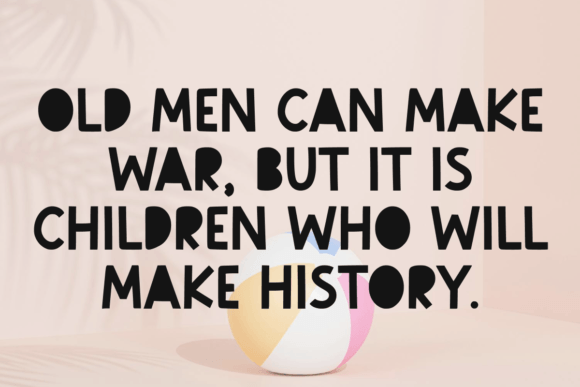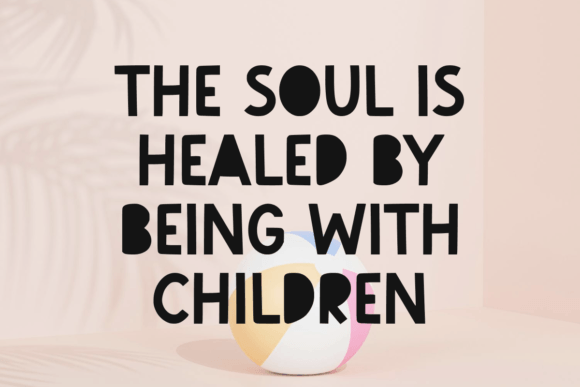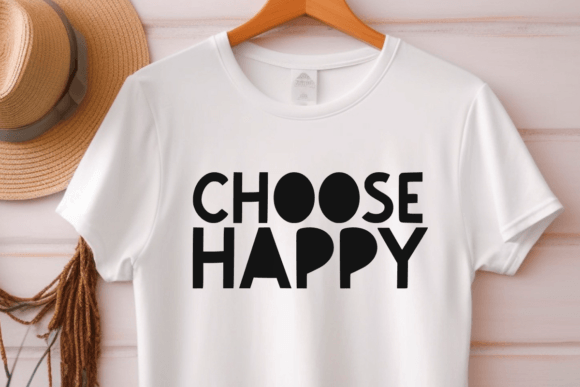
Introduction to Retro Quirky Font
Retro Quirky is a playful casual and quirky cute display font.
This font is very unique suitable for craft ideas.
Key Features of Retro Quirky Font
Why Choose Retro Quirky Font?